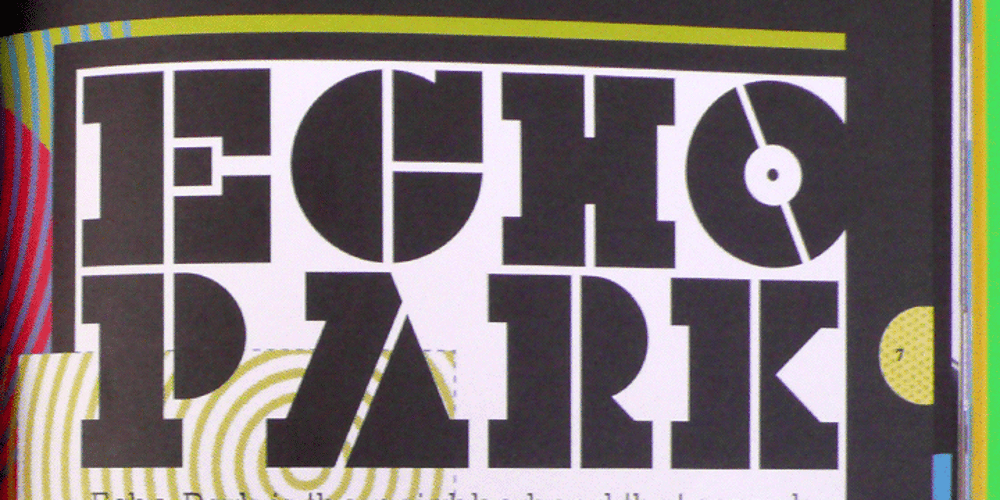
Black-Out Font Family was designed by Ian Lynam, Eli Carrico and published by Wordshape. Black-Out contains 2 styles and family package options. Bohemian Modern slab stencil display font Black–Out is a result of three things: the need for a distinctive ultra-black display typeface, an admiration for slab-serifs and Clarendons, and the love of systematic stencil type. Fusing all the desires together resulted in Black–Out. What was the inspiration for designing the font? Slab serifs + Clarendons + systematic stencil type = Black-Out! What are its main characteristics and features? It is a massive chunk of type, contemporary in nature while also harking back to the sun-drenched Modernism of California of the 1970s. Usage recommendations: Display type for use in materials that are meant to evoke a range of emotions.